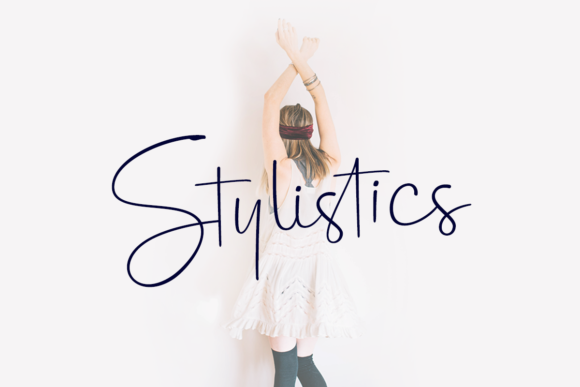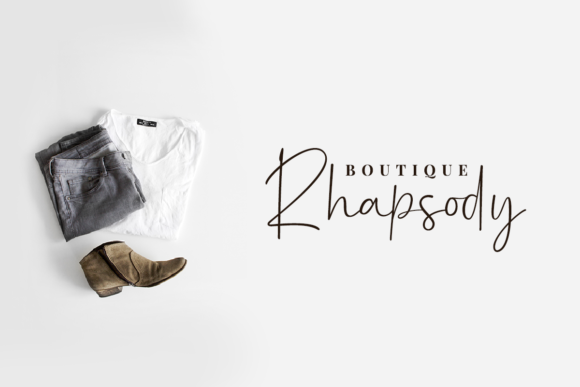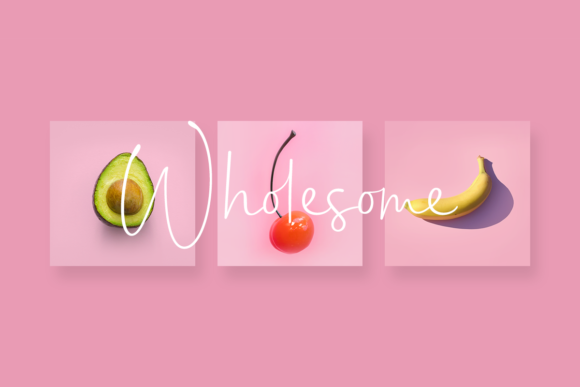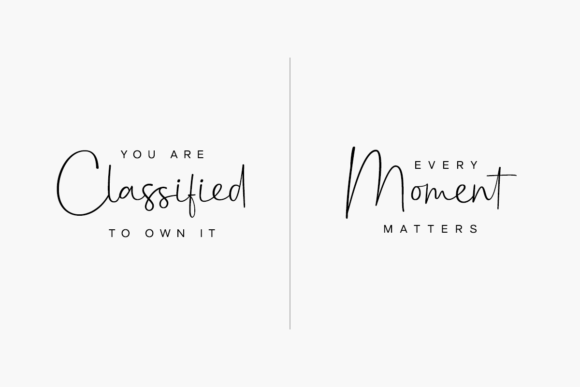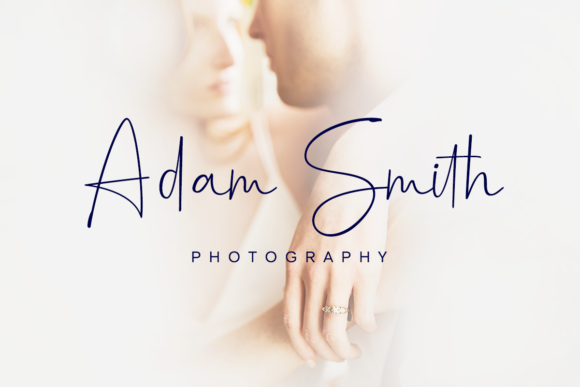
Introducing Antebas Font: The Perfect Handwritten Font for Creative Projects
Are you a designer or crafter looking for a unique and authentic font to elevate your creative projects? Look no further than Antebas Font! This smooth, casual handwritten font is designed to add a personal touch to your designs, making it perfect for a wide range of applications, from apparel designs and labels to photography and watermarks.
The Unique Features of Antebas Font
Antebas Font stands out from other handwritten fonts due to its slightly different letters, which give it an authentic and organic feel. The font’s friendly style makes it easy to read and understand, making it perfect for use in a variety of creative projects. Whether you’re designing a logo, creating a label, or adding a watermark to your photos, Antebas Font is sure to make your designs stand out.
What Makes Antebas Font So Versatile?
One of the key benefits of Antebas Font is its versatility. The font’s casual and smooth style makes it suitable for use in a wide range of creative projects, including:
- Apparel designs: Add a personal touch to your t-shirt designs, hoodies, and other apparel with Antebas Font.
- Labels: Create custom labels for your products or gifts with this unique and stylish font.
- Photography: Add a watermark to your photos with Antebas Font for a professional and authentic look.
- Creative projects: Use Antebas Font to add a personal touch to your creative projects, such as posters, flyers, and brochures.
The Benefits of Using Antebas Font
There are many benefits to using Antebas Font in your creative projects. Some of the key advantages include:
- Unique and authentic look: Antebas Font’s slightly different letters give it a unique and authentic look that will make your designs stand out.
- Easy to read: The font’s friendly style makes it easy to read and understand, even at small sizes.
- Versatile: Antebas Font is suitable for use in a wide range of creative projects, from apparel designs to photography.
- High-quality: Antebas Font is a high-quality font that is designed to produce crisp and clear results, even at large sizes.
How to Use Antebas Font in Your Designs